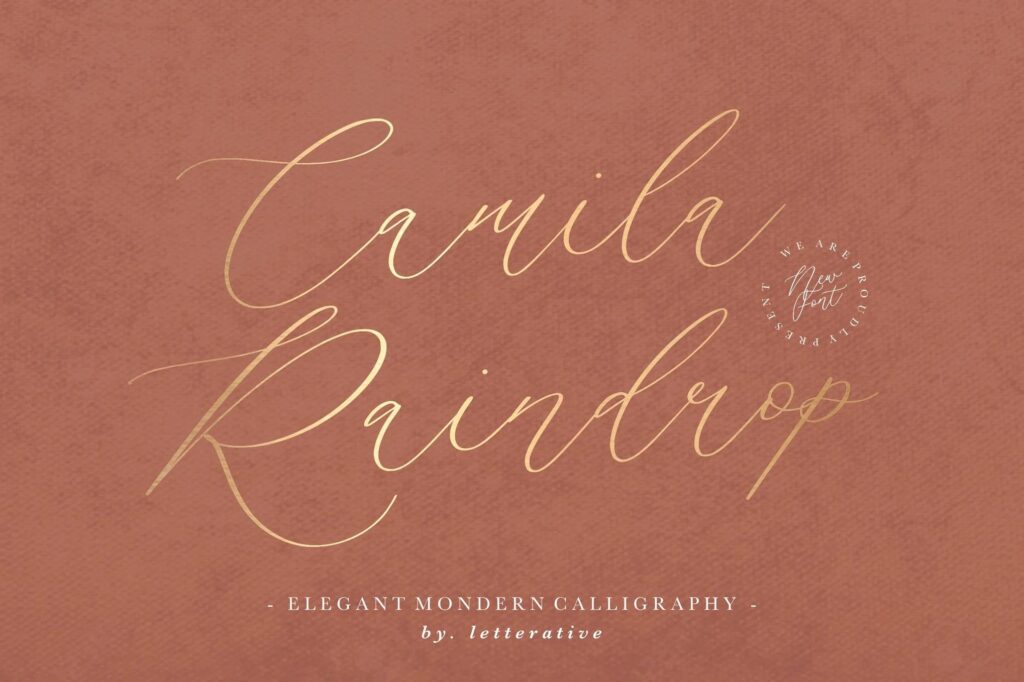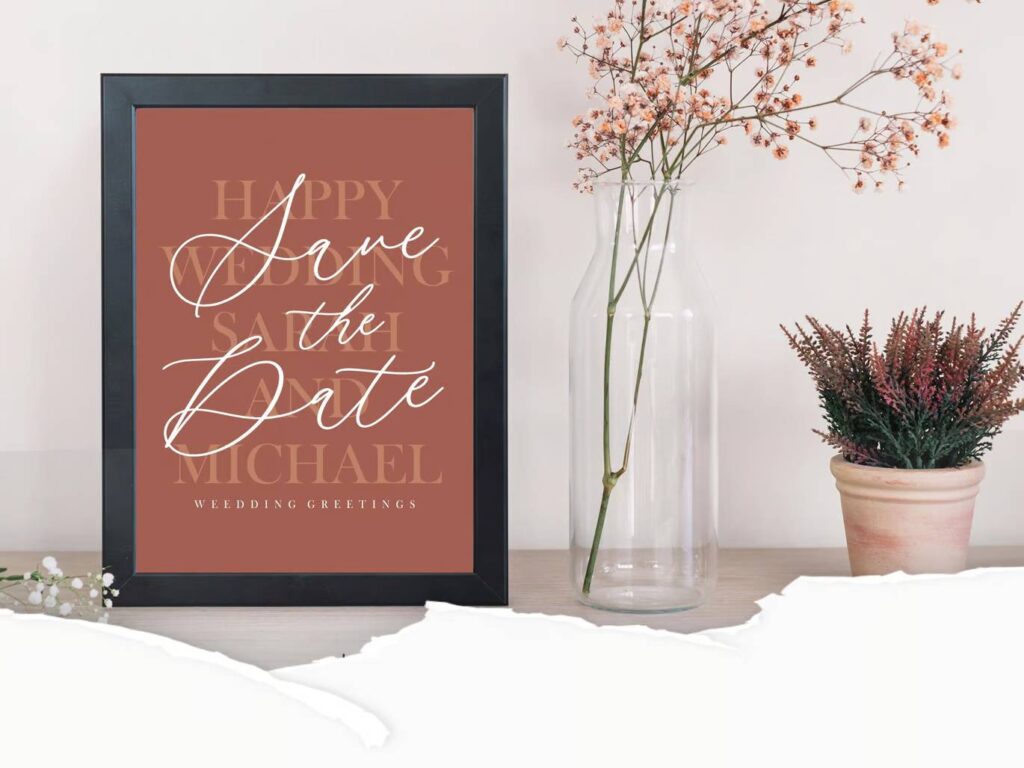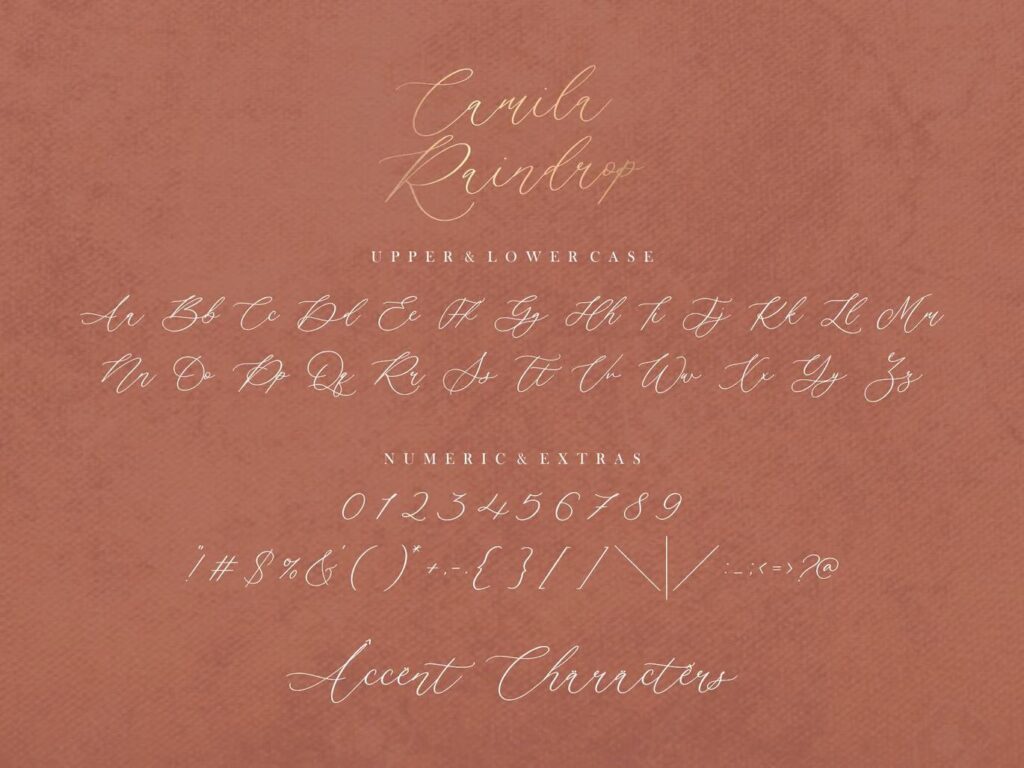
Camila Raindrop
Introducing Camila Raindrop font by Balpirick Studio – an elegant modern calligraphy font designed to add a graceful touch to your creative projects.
Whether it’s product packaging, branding, magazines, social media posts, or wedding invitations, Camila Raindrop brings a delicate, handwritten charm that enhances every word.